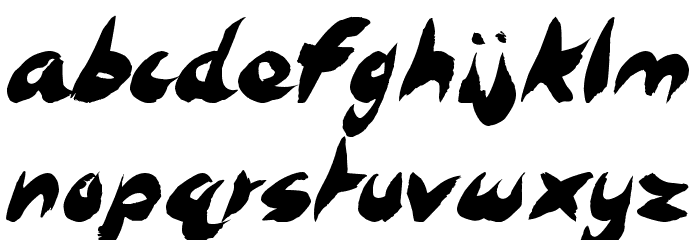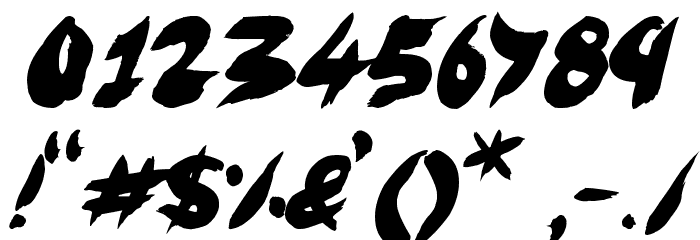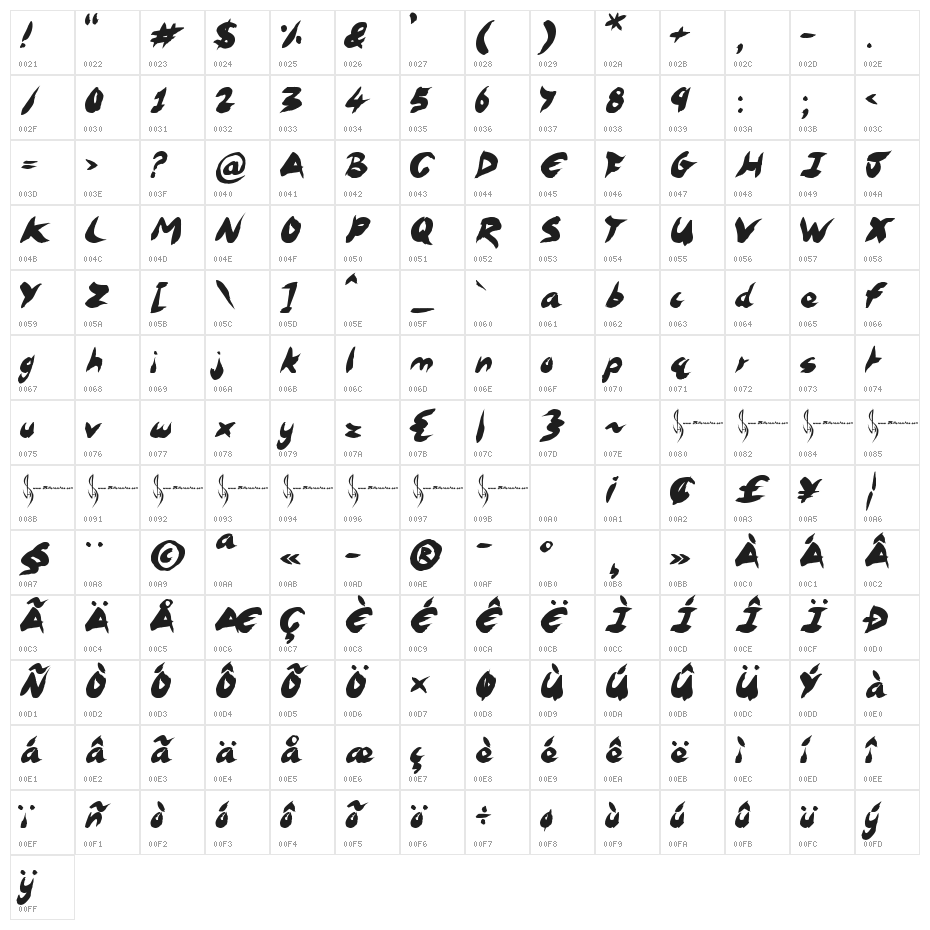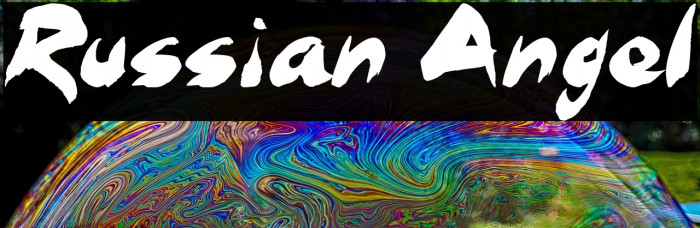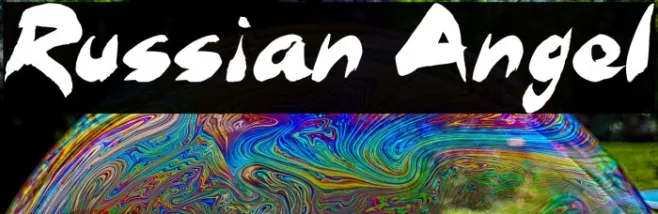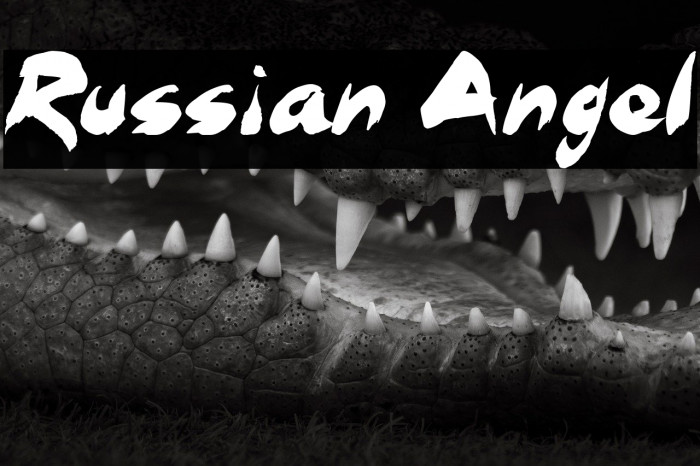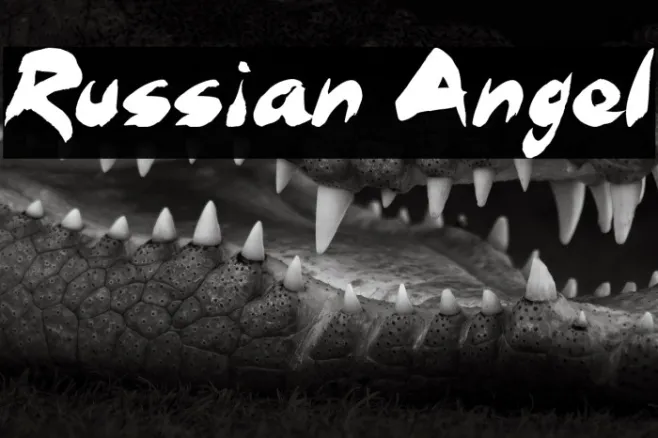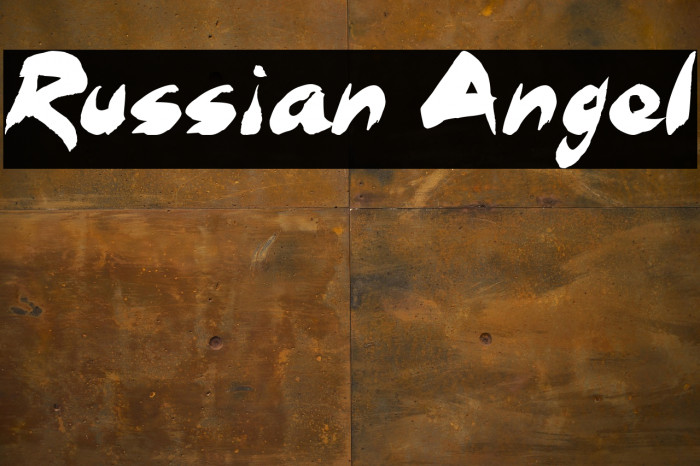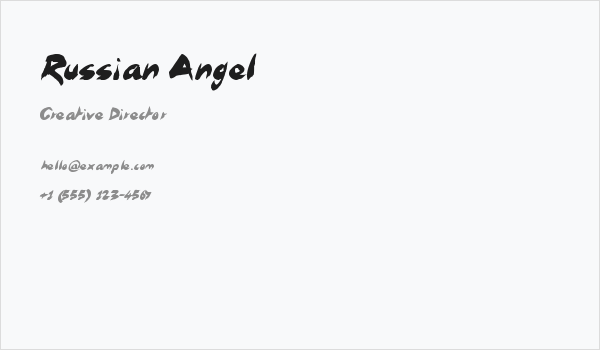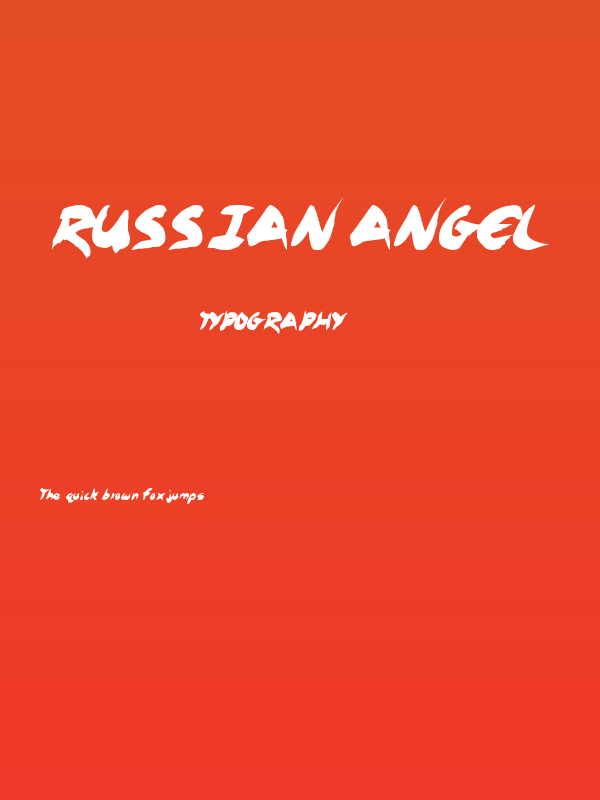
Russian Angel Font
This font exhibits a bold and dynamic brush style, characterized by its thick, sweeping strokes and energetic appearance. The letters are crafted with a sense of movement, giving them a lively and expressive quality. The uppercase and lowercase characters maintain a consistent style, with exaggerated curves and sharp angles that create a sense of urgency and flair. The numbers and special characters follow the same aesthetic, ensuring a cohesive look across all glyphs. The overall impression is one of boldness and creativity, making it suitable for projects that require a strong visual impact.
A bold, brush-style font with dynamic strokes and expressive flair.
- Proposed Projects: Ideal for posters, album covers, branding, and any design needing a bold, artistic touch.